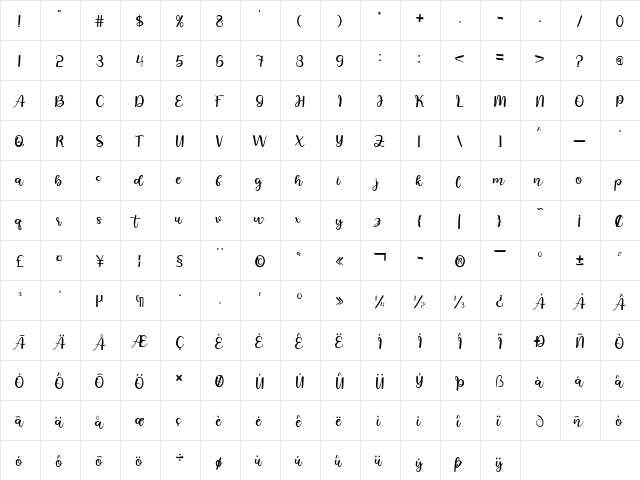
eighteen seventy Regular
| Designer | tahu balap / Winarko |
Design Context for eighteen seventy Typeface
eighteen seventy is a composed and adaptable typeface that performs quietly and consistently across a wide range of design contexts.